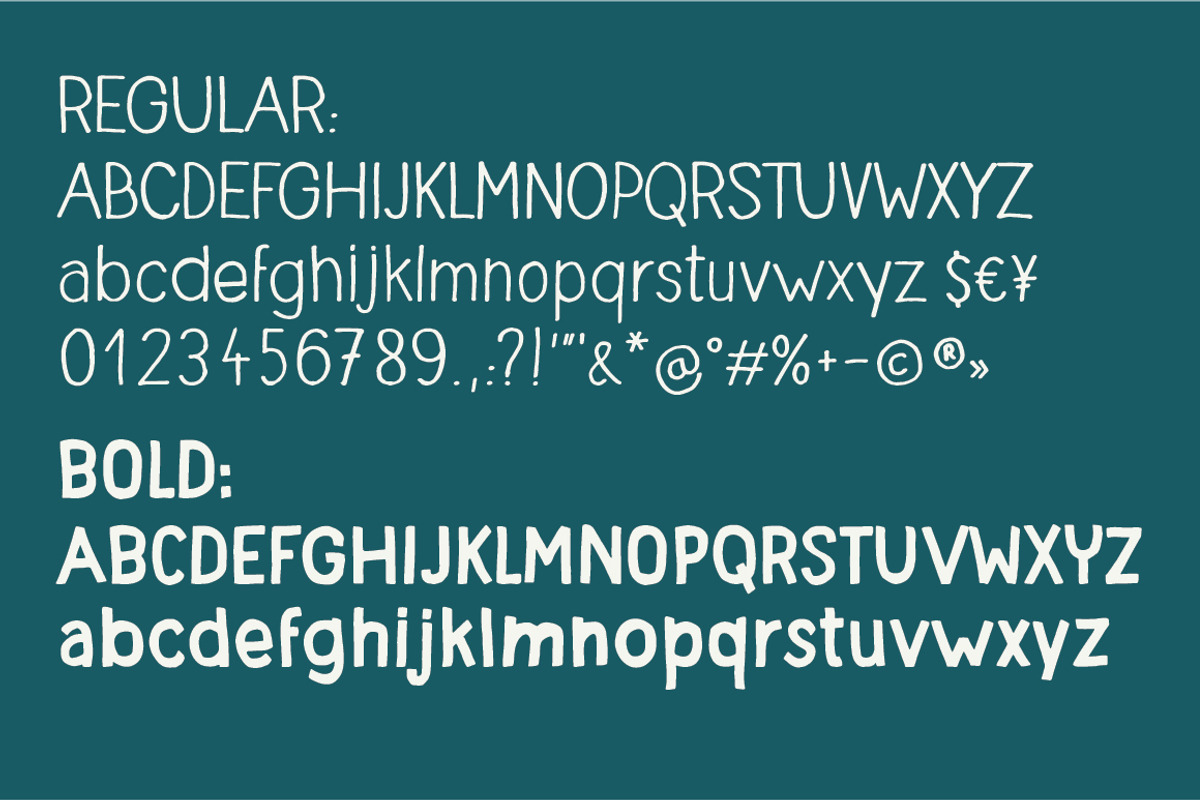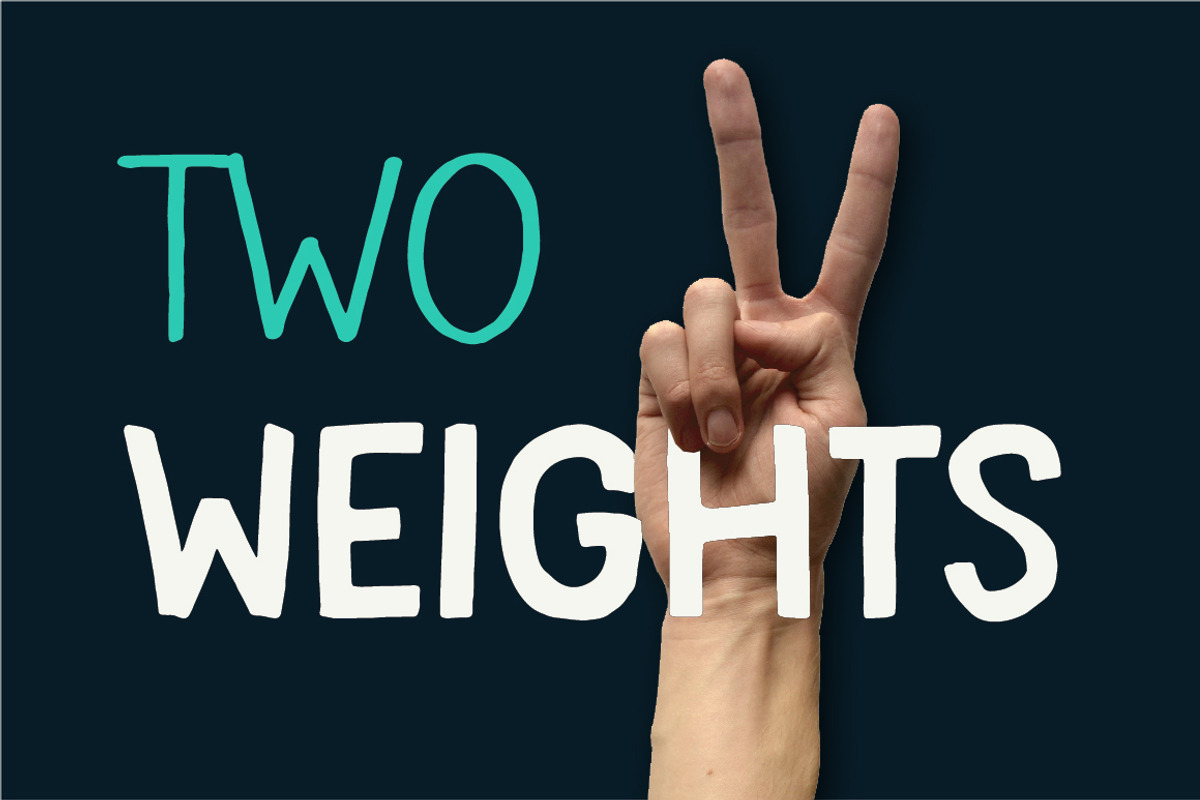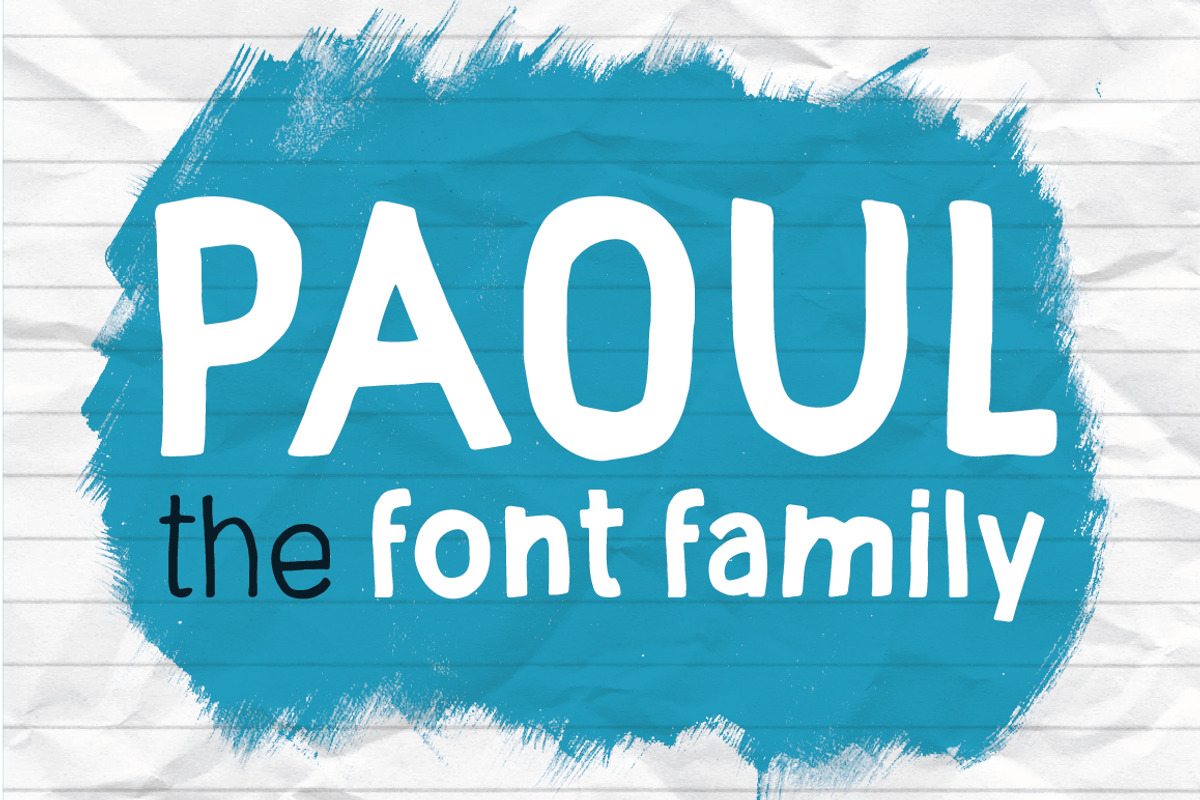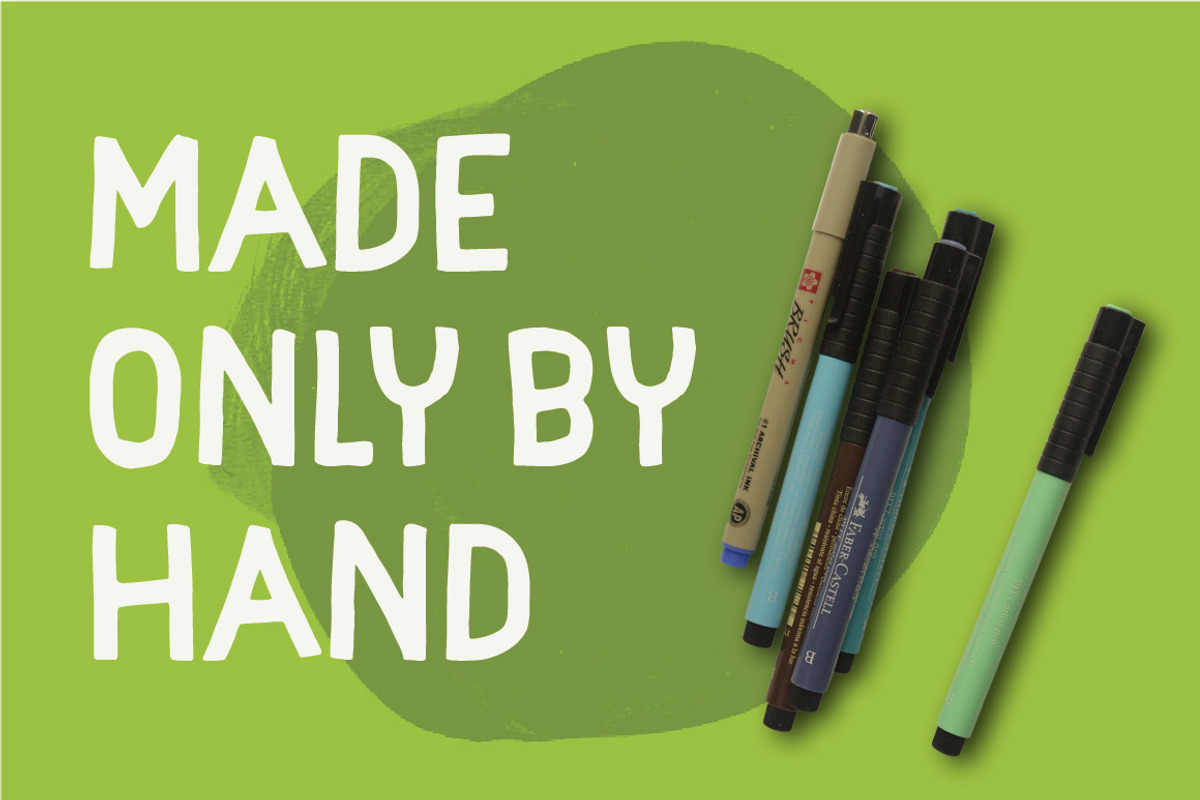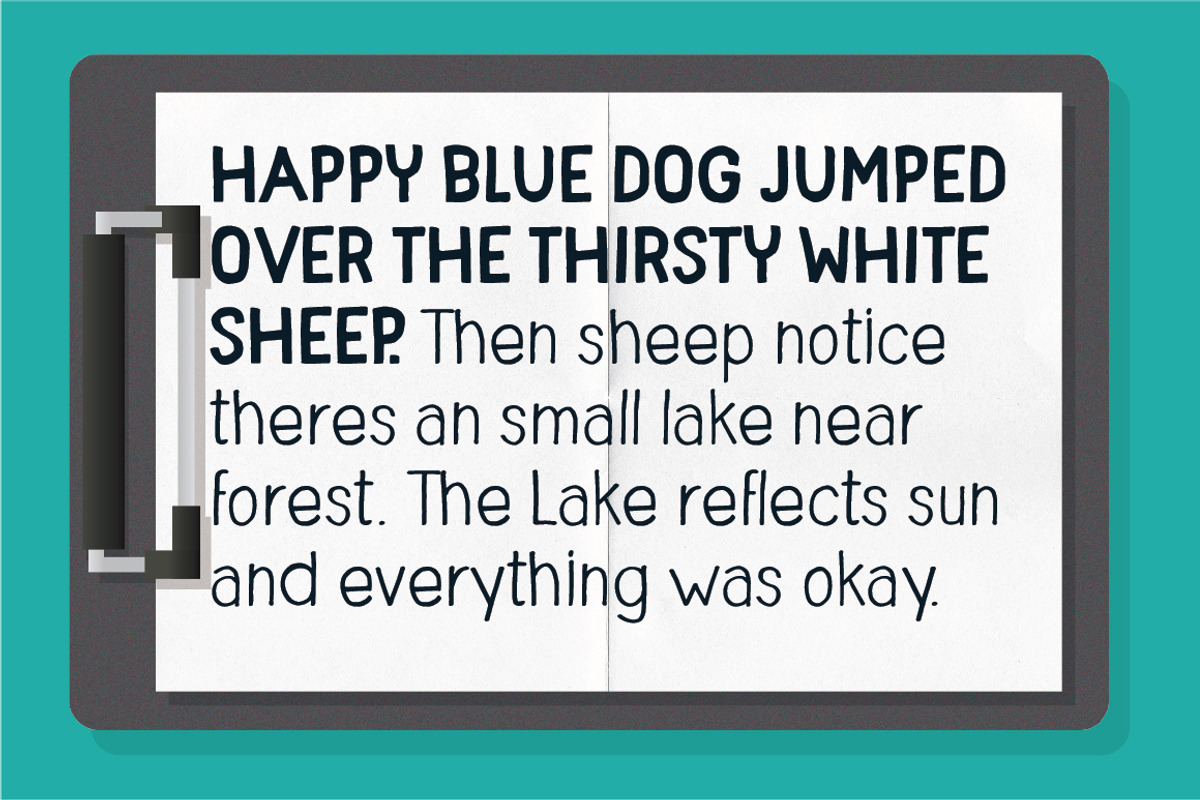
Paoul - The Headliner; Font Family
Paoul - The Headliner; Font Family by Vitek Graphic is a font selected for branding, posters, packaging, typography.
- Paoul Regular
- Paoul Bold
Why Paoul - The Headliner; Font Family is worth a look
Paoul - The Headliner; Font Family by Vitek Graphic fits naturally into Branding, posters, packaging, typography.